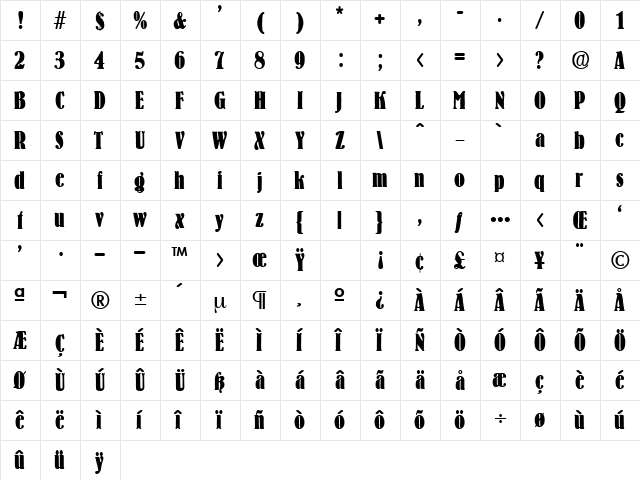
AkronBoldCondensed Regular
Design Context for AkronBoldCondensed Typeface
AkronBoldCondensed offers clean, dependable letterforms without strong stylistic allegiance, making it a practical choice for designers who need flexibility. Its bold stroke weight gives it real presence on the page. The condensed width makes it efficient for tight spaces without sacrificing legibility.